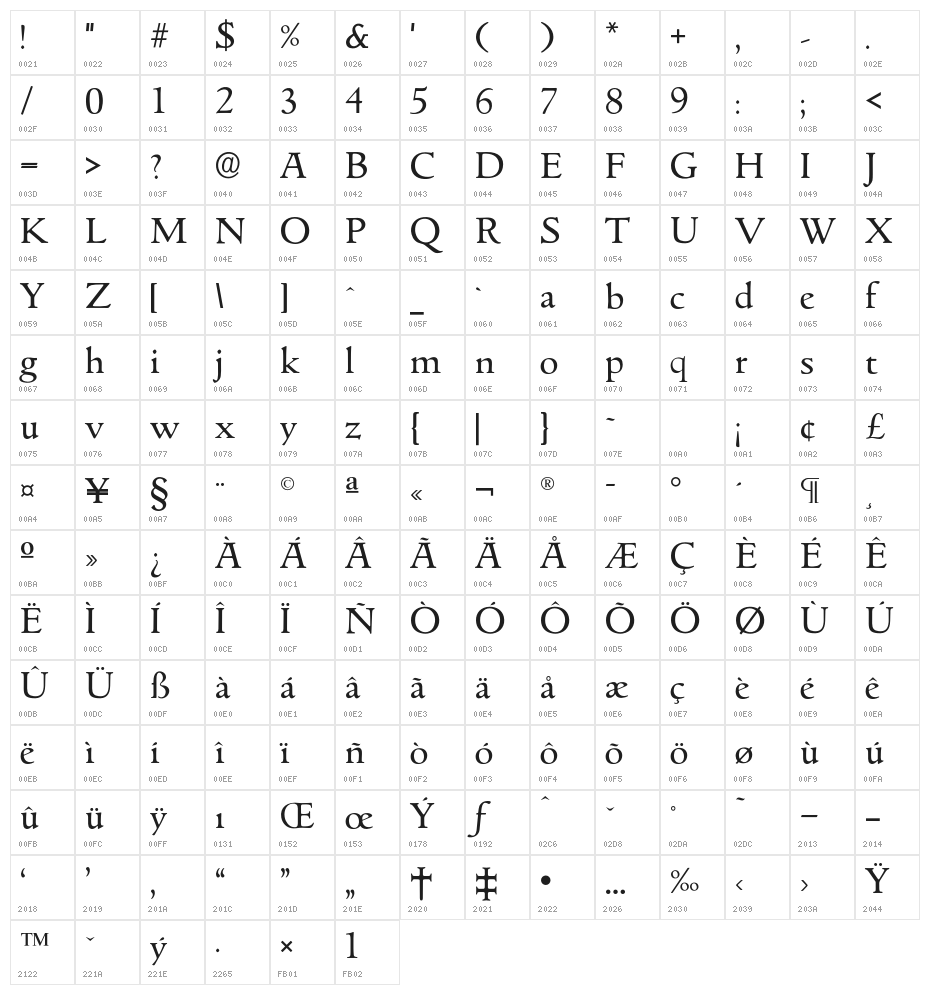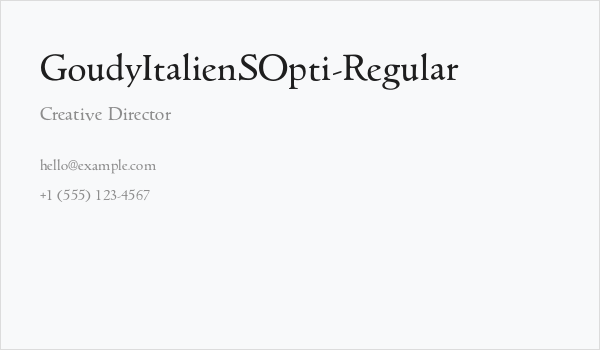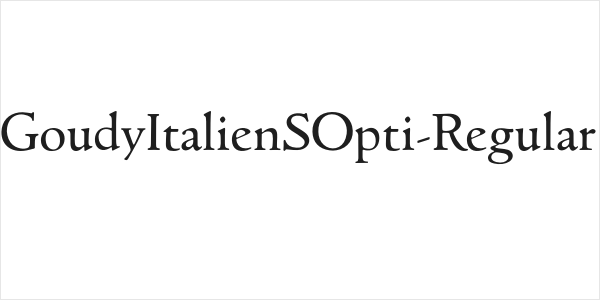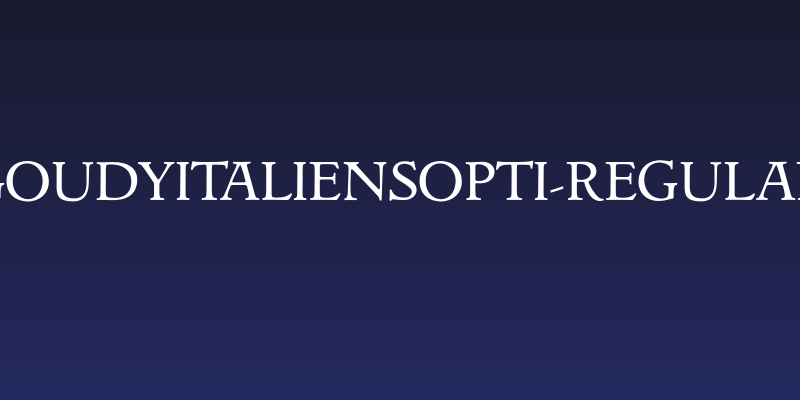
GoudyItalienSOpti-Regular Font
GoudyItalienSOpti-Regular Description
This font exhibits a classic serif style with elegant, flowing lines and a touch of vintage charm. The uppercase letters are tall and stately, with pronounced serifs that add a sense of formality and tradition. The lowercase letters maintain a consistent style, featuring smooth curves and a slightly condensed appearance. Numbers are clear and legible, with a balanced design that complements the overall aesthetic. Special characters are well-integrated, maintaining the font's cohesive look. The font's design is versatile, suitable for both digital and print media, offering a timeless appeal that can enhance a variety of projects.
| Proposed Projects | Ideal for book covers, formal invitations, branding, and editorial design. |